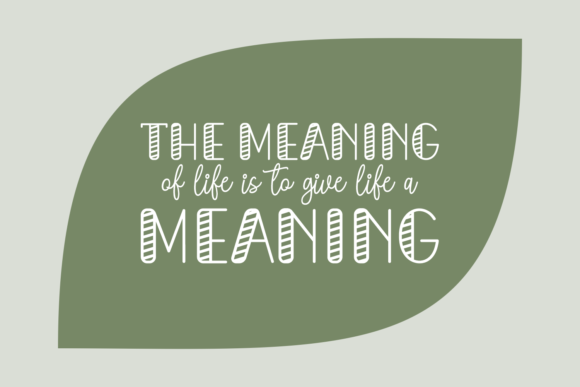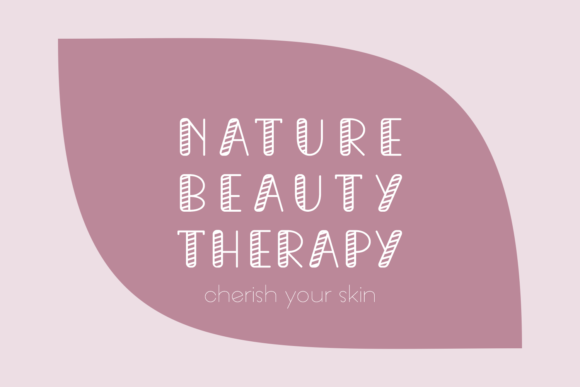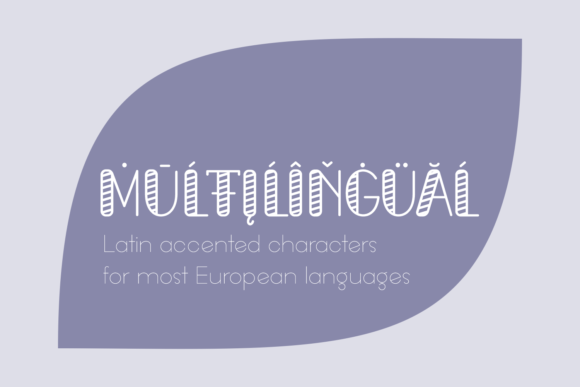
Introduction to Linely Font
Linely is a cool, modern and adaptable display font.
Inspired by the minimalist art, this font looks simple and authentic It will enhance the quality of each of your posters, flyers, or print.
Key Features of Linely Font
Why Choose Linely Font?
Linely Font offers exceptional quality and versatility, making it a valuable addition to your design toolkit. Whether you’re creating for personal projects or commercial use, Linely Font delivers professional results.